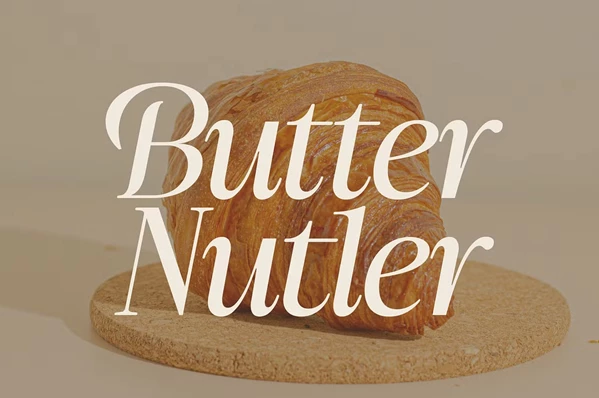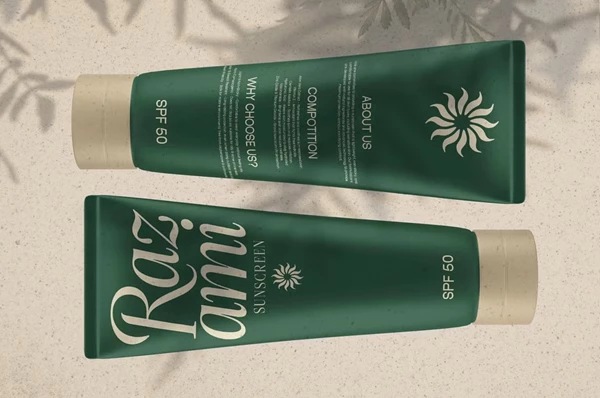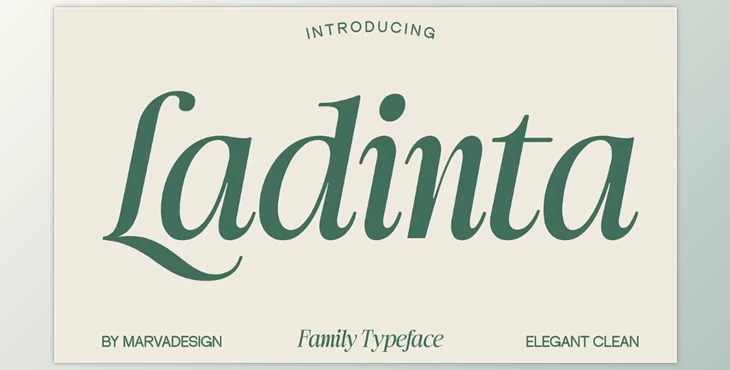
Ladinta - Family Serif Font:
The Ladinta typeface is a luxurious serif font that adds a touch of class to any design project. It is suitable for branding, editorial projects, and sophisticated typography and has calligraphic accents with smooth curves. The font family offers numerous weights ranging from Thin to Black, providing versatility for meeting various design needs. Ladinta’s balanced contrast and flowing serifs provide a timeless look that adds to the ease of reading without looking too fussy. A hallmark of this typeface is its ability to blend the old and the new, making it perfect for formal documents and creative work alike.
- Styles: Composed of a complete range of styles including Thin, ExtraLight, Light, Regular, Medium, SemiBold, Bold, Extra Bold, and Black, with corresponding italics, as well a sthe Variable option.
- Character Support: Supports all capital and small letters and offers several languages for inclusion for people from many different countries.
- Design Enhancements: Adds more creativity to the design with the use of ligatures and other special characters.